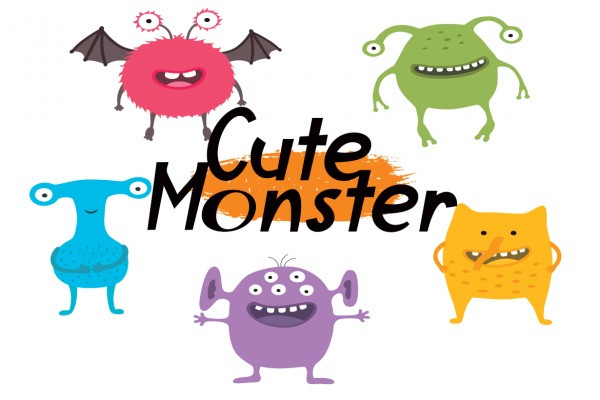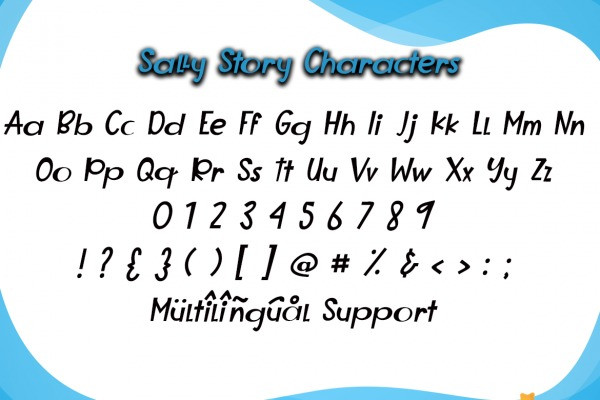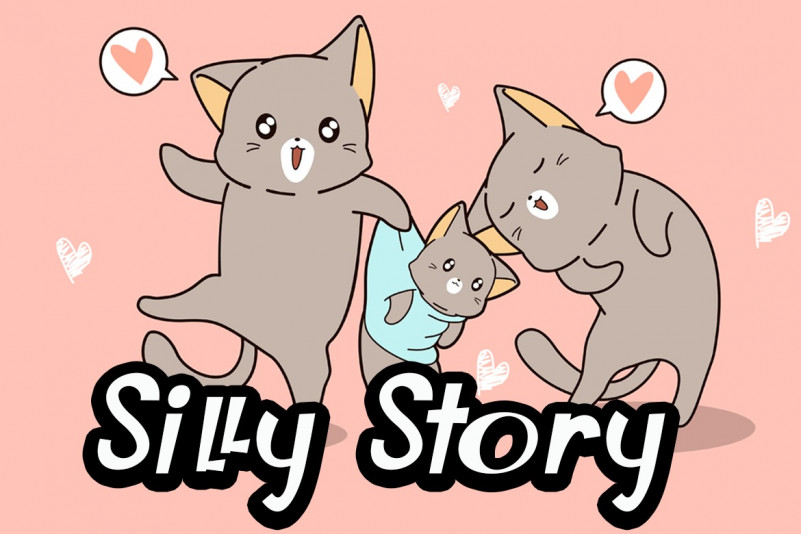
Silly Story Display Font
Silly Story is a cute and quirky display font. It will add a pleasant touch to each of your designs. Add this beautiful and friendly font to your creative ideas and notice how it makes them stand out! Smart Student is a simple and neat lettered handwritten font. Its natural and unique style makes it incredibly fitting to a large pool of designs. The only limit is your imagination! Honestly it works perfectly for headlines, logos, posters, packaging, T-shirts and much more.